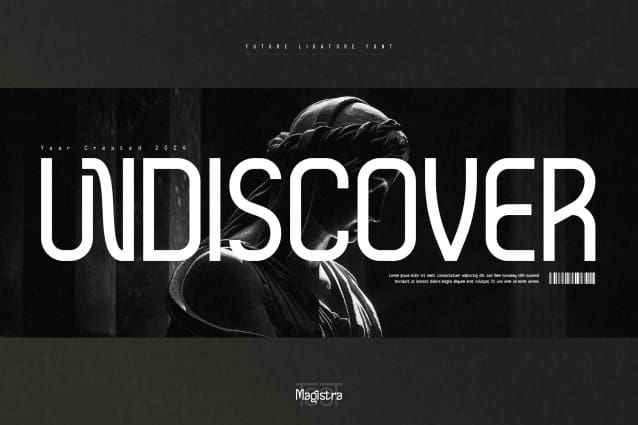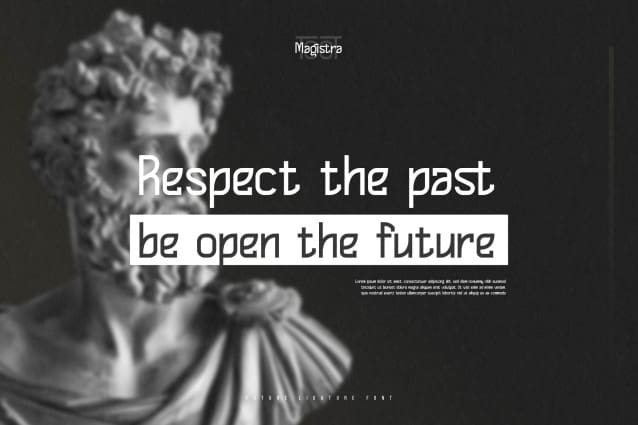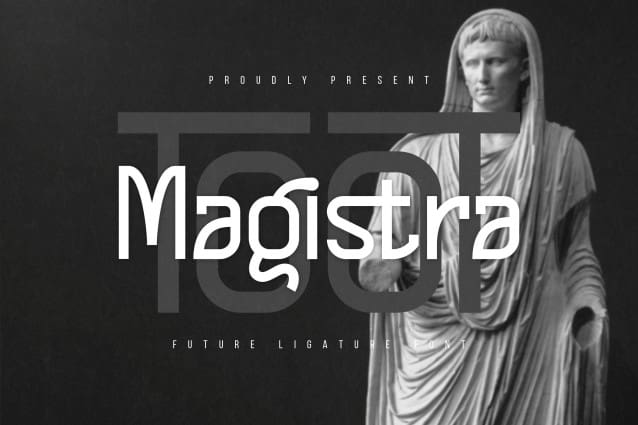
Toot Magistra Font
Toot Magistra Font | Future Ligature Font, from Denustudios, suitable for any projects such as: logos, branding projects, homeware designs, product packaging, mugs, quotes, posters, shopping bags, t-shirts, book covers, name card, invitation cards, greeting cards, label, photography, watermark, special events, and all your other lovely projects that need a Future Ligature Font taste.